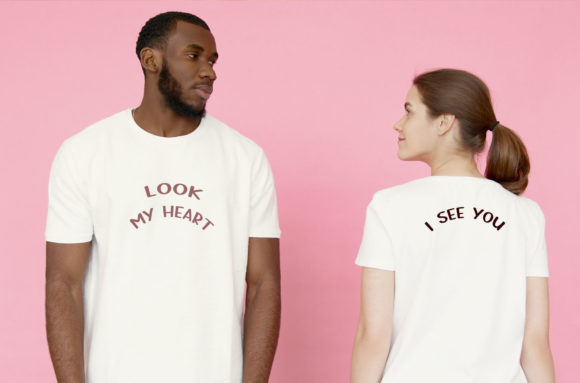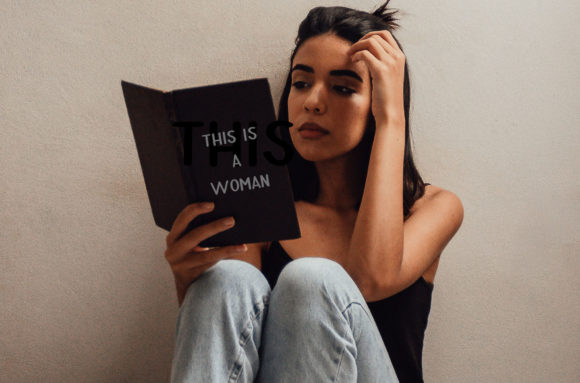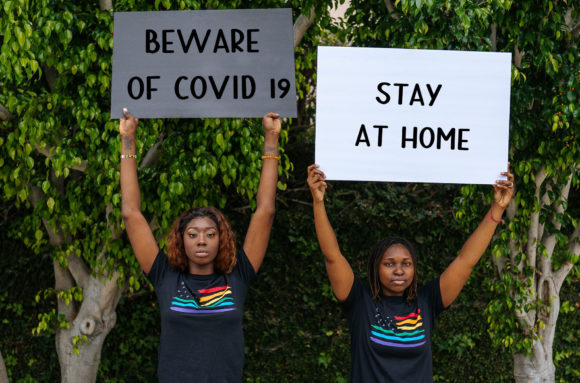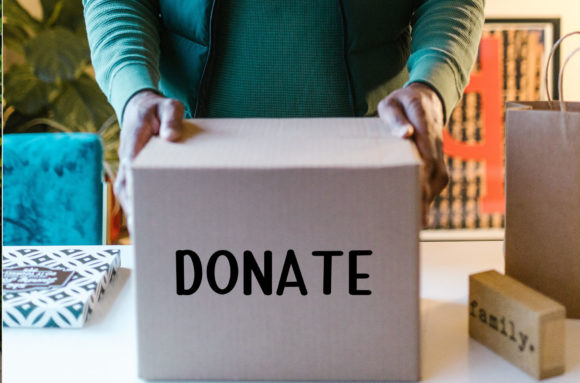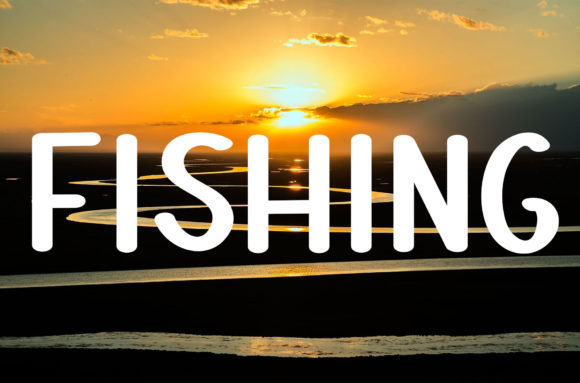
Fishing Font: The Perfect Choice for Elegant Designs
Fishing Font is a stunning, thin-case sans serif font that has captured the hearts of designers and crafters alike. Its ravishing style and versatility make it an ideal choice for creating a wide range of designs, from gorgeous wedding invitations to beautiful stationery art, engaging social media posts, and more!
What Makes Fishing Font So Special?
Fishing Font is a simple yet elegant font that boasts a unique, eye-catching style. Its thin-case sans serif design gives it a clean and modern look that’s perfect for creating sophisticated designs. The font’s simplicity makes it highly legible, ensuring that your message is conveyed clearly and effectively.
Uses for Fishing Font
Fishing Font is an incredibly versatile font that can be used for a wide range of design projects. Here are just a few ideas to get you started:
- Wedding Invitations: Create beautiful, elegant wedding invitations that set the tone for a stunning celebration. Fishing Font’s thin-case design and sans serif style make it perfect for formal wedding invitations.
- Stationery Art: Add a touch of elegance to your stationery with Fishing Font. Use it to create gorgeous notecards, greeting cards, and more.
- Social Media Posts: Make your social media posts stand out with Fishing Font. Its clean and modern design ensures that your message is conveyed clearly and effectively.
- DIY Crafts: Fishing Font is perfect for crafters who love to create handmade cards, gift tags, and other paper crafts.
Why Designers and Crafters Love Fishing Font
Designers and crafters love Fishing Font for many reasons. Here are just a few:
- Elegant Style: Fishing Font’s thin-case sans serif design gives it an elegant, sophisticated style that’s perfect for creating high-end designs.
- Versatility: Fishing Font can be used for a wide range of design projects, from wedding invitations to social media posts.
- Easy to Read: Fishing Font’s simple design makes it highly legible, ensuring that your message is conveyed clearly and effectively.
- Unique: Fishing Font’s unique style sets it apart from other fonts, making it perfect for designers and crafters who want to create something truly special.
Tips for Using Fishing Font
Here are a few tips for using Fishing Font in your designs:
- Pair it with Other Fonts: Fishing Font pairs well with other sans serif fonts. Try pairing it with a bold font for a striking contrast.
- Use it for Headings: Fishing Font is perfect for headings and titles. Use it to add a touch of elegance to your designs.
- Experiment with Colors: Fishing Font looks great in a variety of colors. Experiment with different colors to find the one that works best for your design.
Fishing Font is a stunning, thin-case sans serif font that’s perfect for designers and crafters who want to create elegant, sophisticated designs. Its versatility, unique style, and ease of use make it an ideal choice for a wide range of design projects. Whether you’re creating wedding invitations, stationery art, social media posts, or DIY crafts, Fishing Font is sure to become your go-to font.
Get Ready to Fall in Love with Fishing Font!